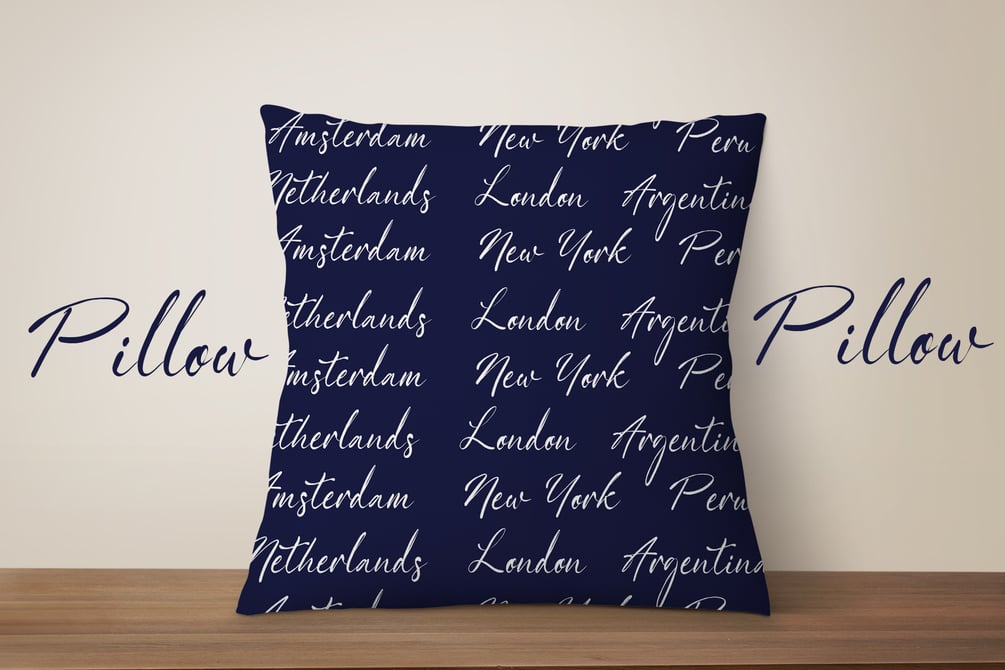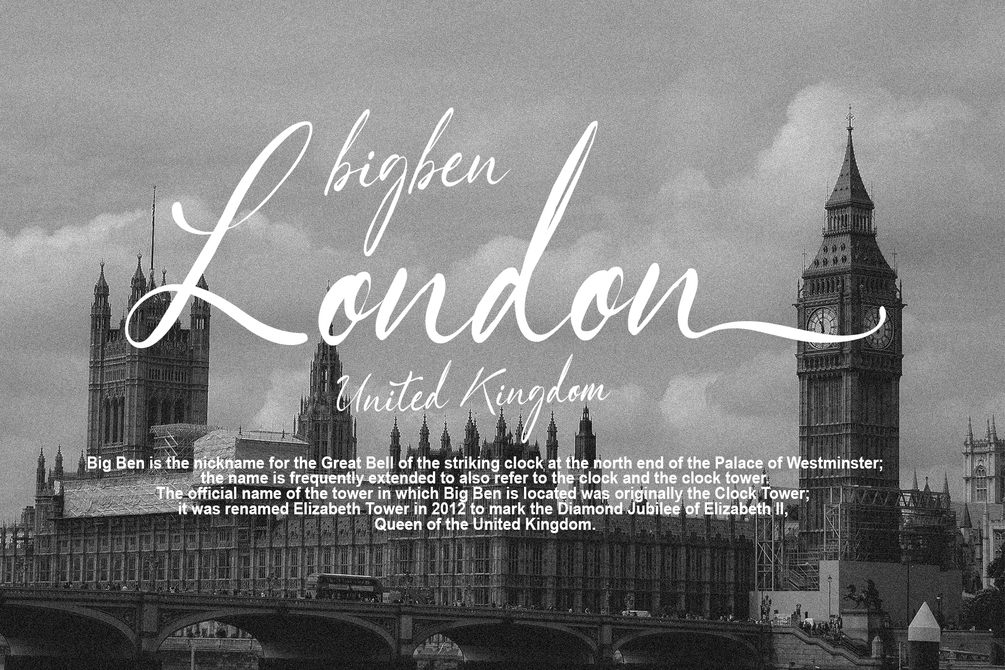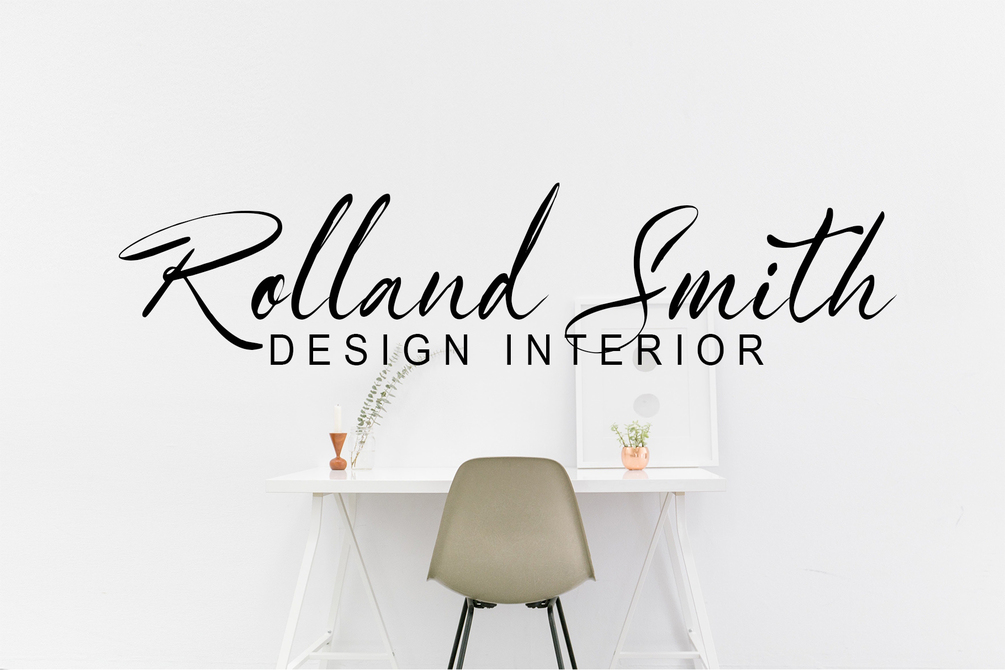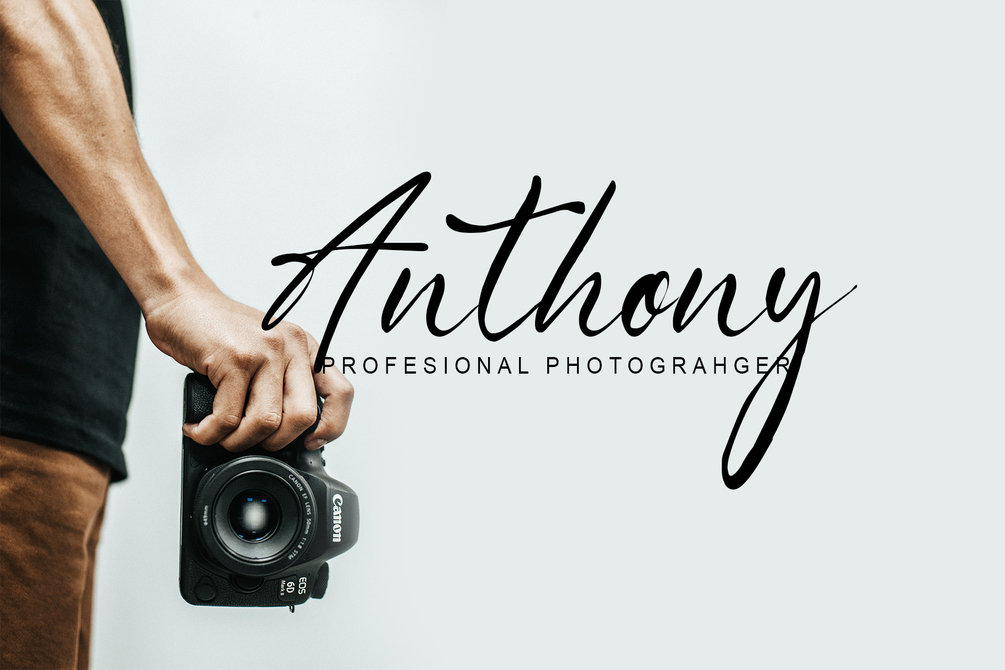
Anasya
Annasya is a modern handwritten font. It's perfect for branding, wedding invitations, birthday cards and more.
Feature
- Uppercase
- Lowercase
- Numeral
- Functional
- Ligature
- Stylistic
- Multilingual